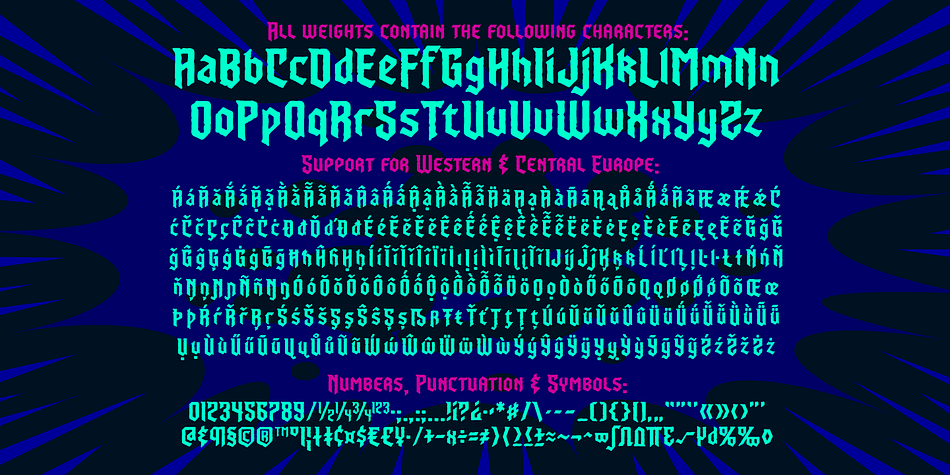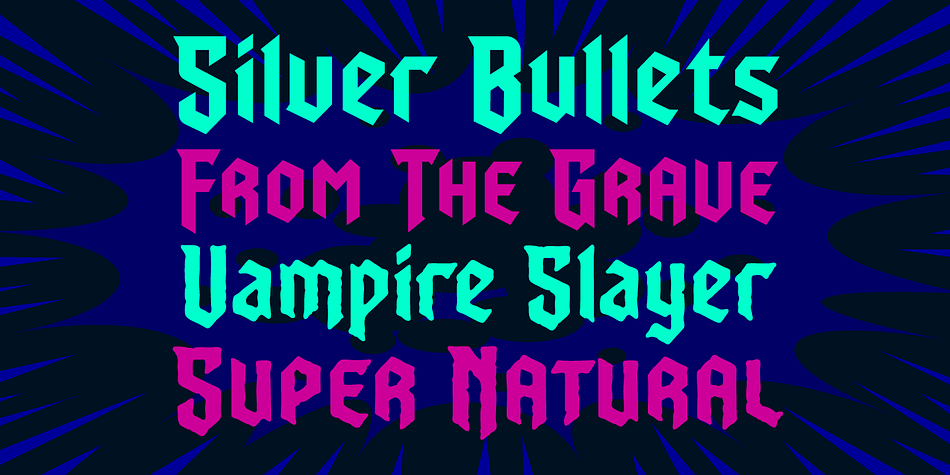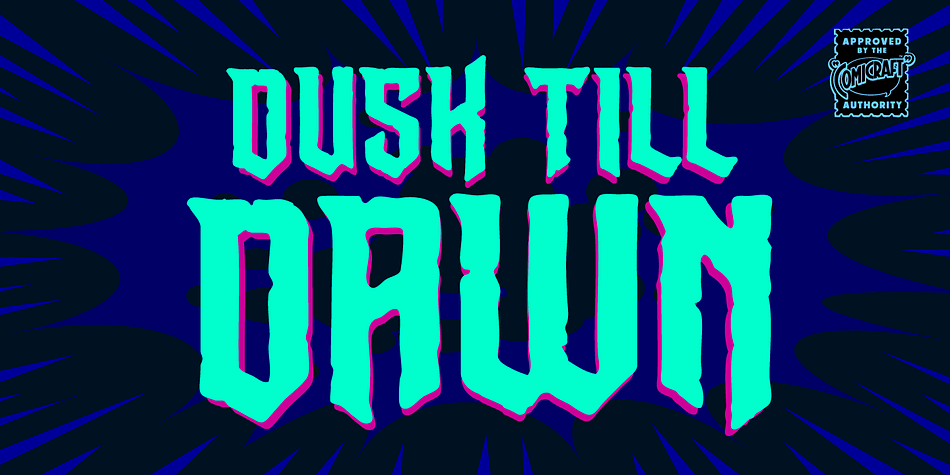
Designed by John Roshell, Dusk Till Dawn is a display font family. This typeface has four styles and was published by Comicraft.
The Vampires have risen from their graves! Innocent young virgins (also goats, sheep, sheep dogs, cows and other sundry farmyard animals) may not see out the night!
We waited to unleash our latest release until the midnight hour, so grab your wooden stakes, silver bullets, crossbows, slingshots and any supernatural weaponry you may have at hand. Garlic capsules and Holy Bibles are also recommended!
DUSKTILLDAWN has been exhumed, lightly dusted in dry earth and exsanguinated for your convenience. Bury your tombstones in Gothic Chic with a font that may very well be worth dying for. We cannot guarantee you will come back to life however.